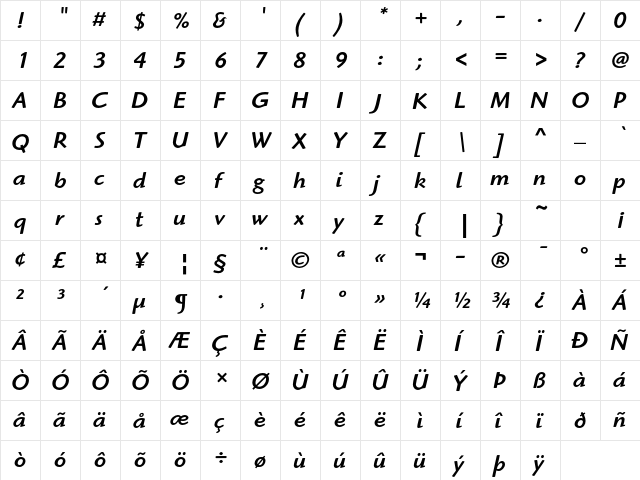
ITC Highlander Std Medium Italic
| Designer | David Farey |
Design Context for ITC Highlander Std Typeface
ITC Highlander Std offers clean, dependable letterforms without strong stylistic allegiance, making it a practical choice for designers who need flexibility. The slanted form adds forward momentum and visual energy.
Pro Tip: Try ITC Highlander Std for annotation and caption copy alongside an upright companion — the contrast in angle creates a dynamic but ordered typographic system.